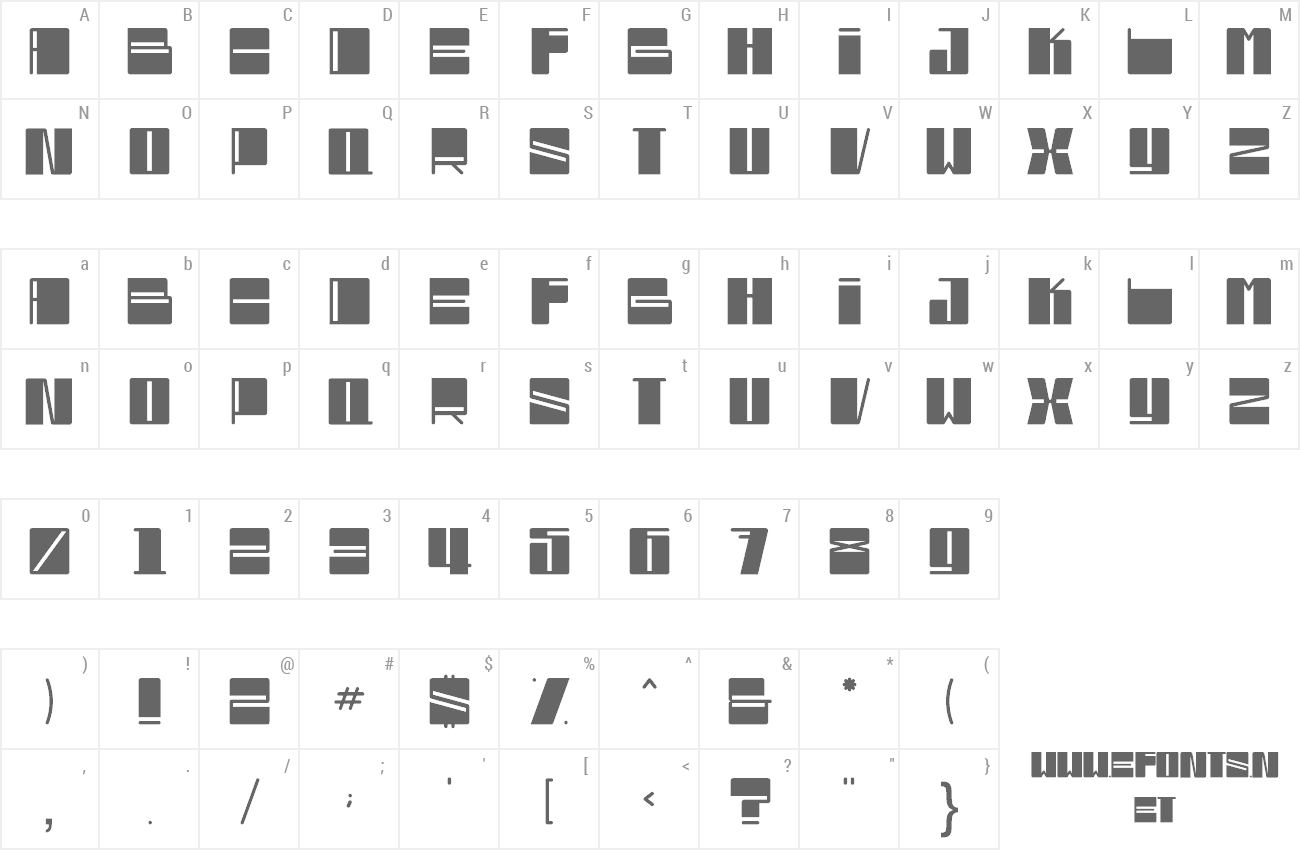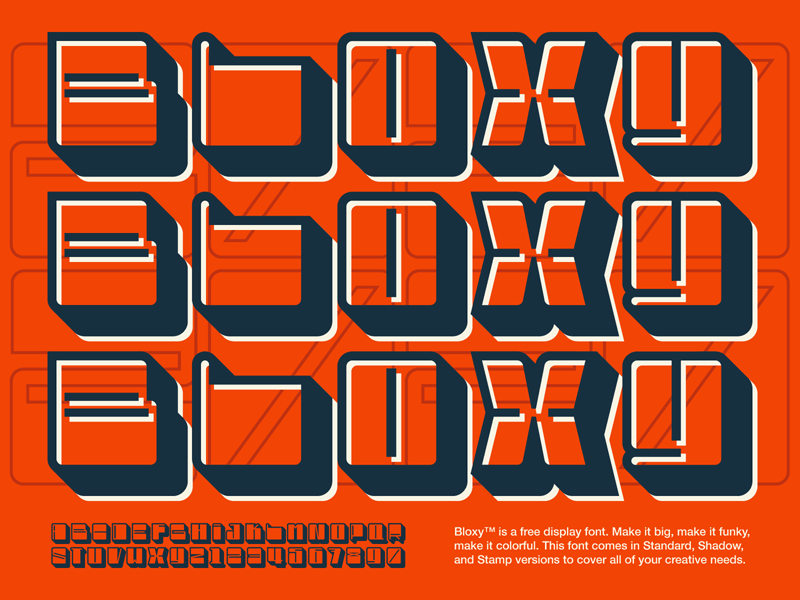
Preview and download Bloxy Font. Created by Michael Cox in Techno Various styles with Free for personal use license.
| Font name: | Bloxy |
| Author: | Michael Cox |
| Note by Michael Cox | |
| Bloxy Display comes in Standard, Shadow, and Stamped versions. Use it to create a message in a pattern for conveying a fun message! |